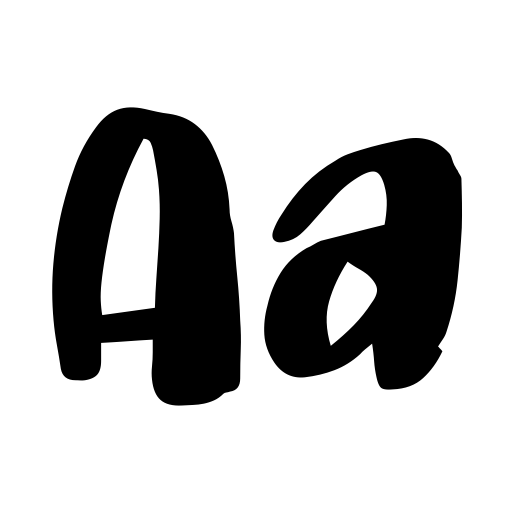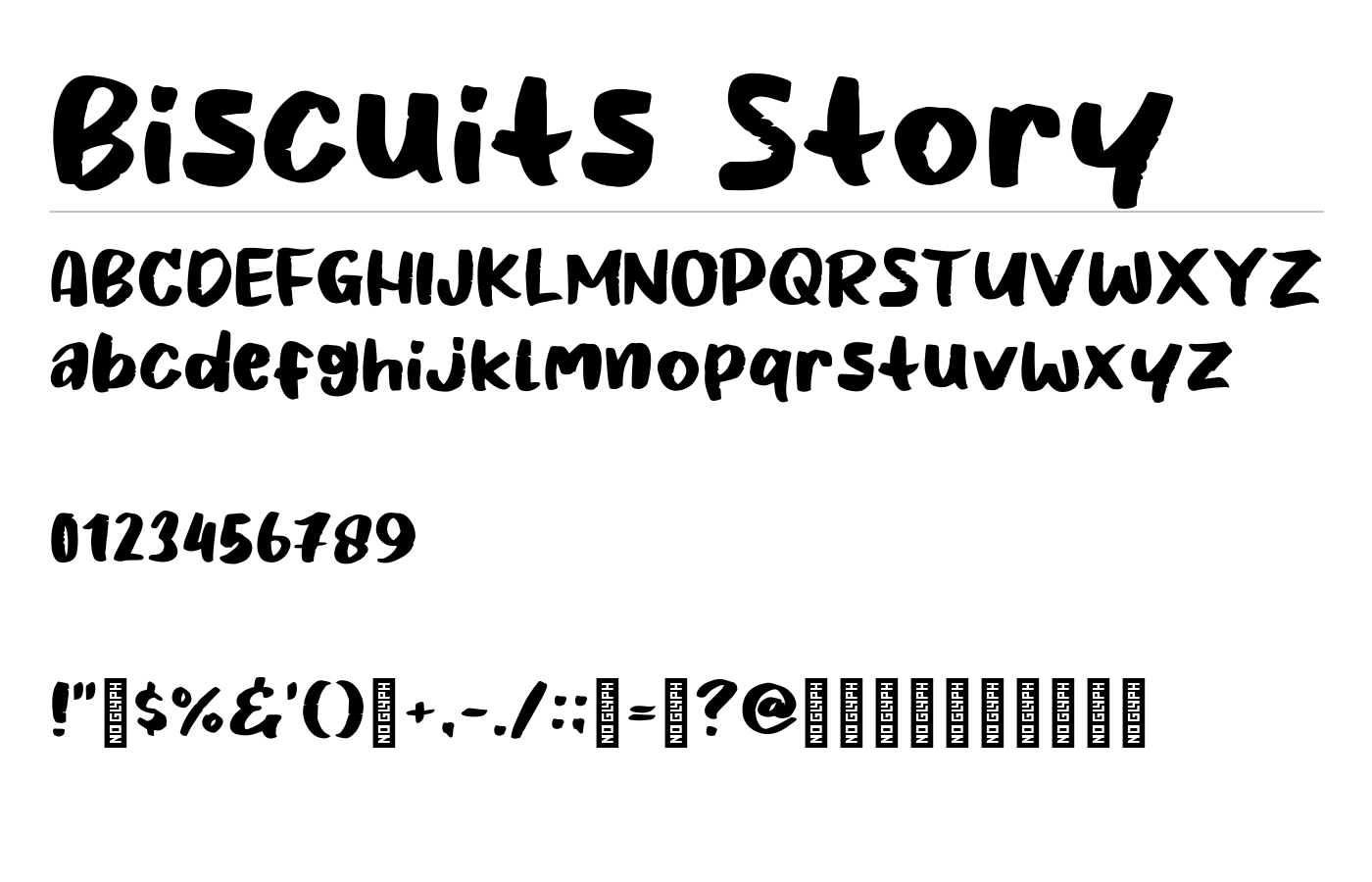
Biscuits Story is a bold, playful handwritten font with a casual and friendly feel, featuring slightly irregular strokes that mimic brush lettering. Its thick, chunky forms and rounded edges make it ideal for designs that want to convey warmth, creativity, and approachability. This font works well for logos, children’s products, informal headlines, and any project that benefits from a lively, hand-crafted touch.
Biscuits Story Font
About Biscuits Story Font
| Designer | Khurasan & Jalembe |